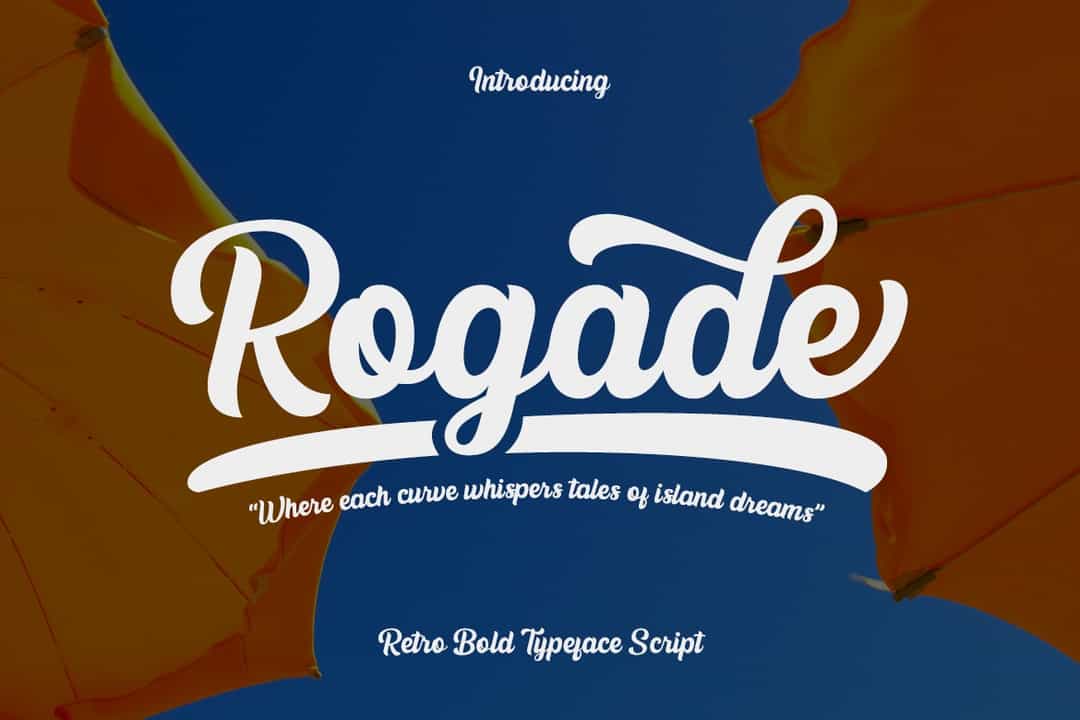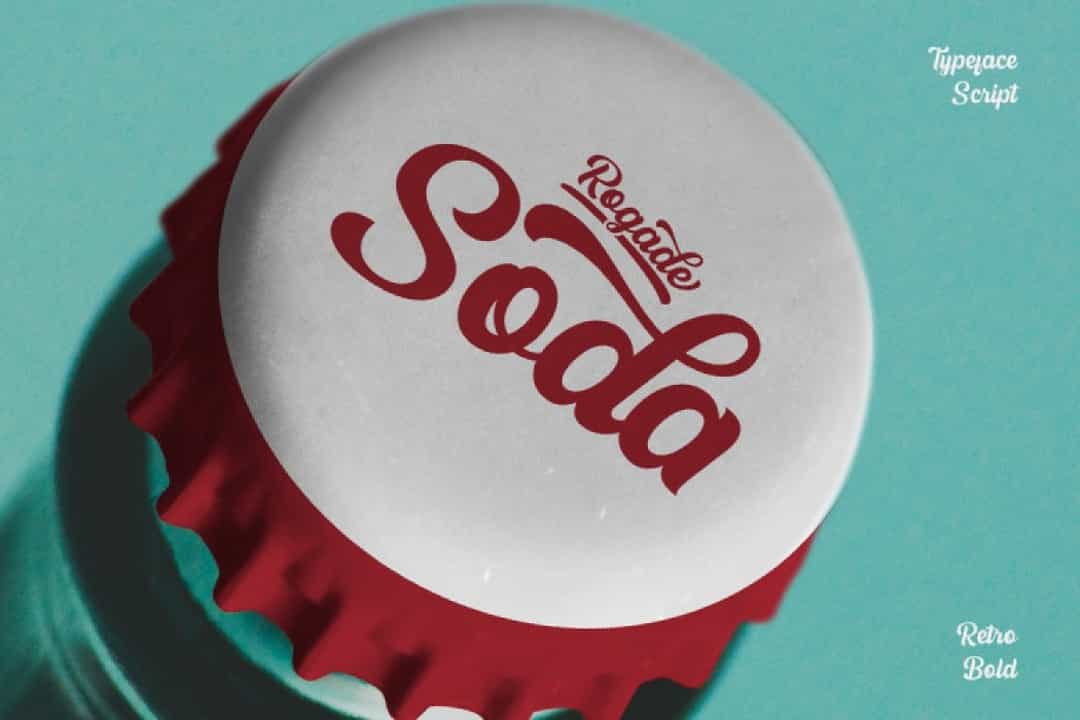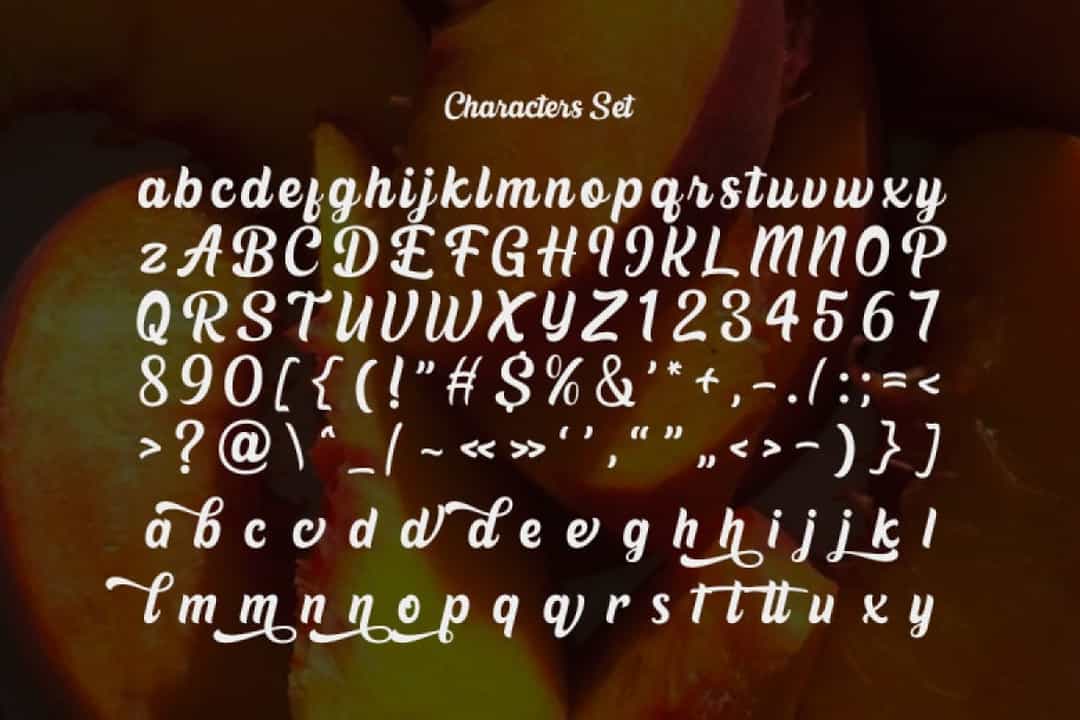
Rogade – is a typeface that brings back the old and nostalgic memories into your designs. Rogade is a font that has been created by the designers who were inspired by the groovy letters of the retro era. It has a bold script style and at the same time it looks very playful and funky.